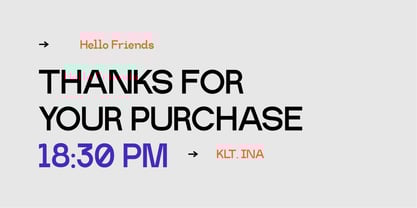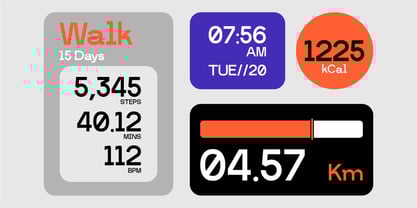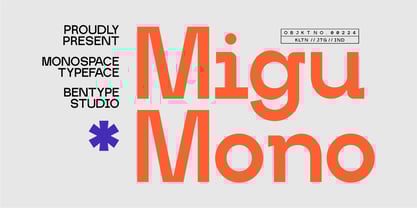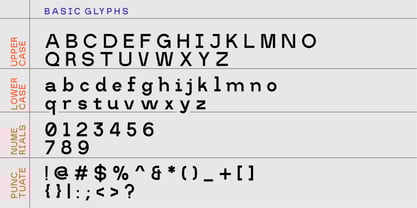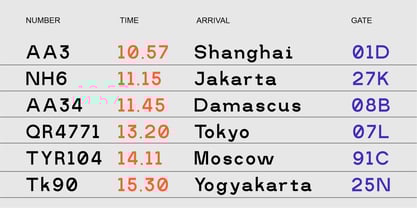
Migumono
by Bentype
The Migumono Font Family was designed by Muhammad Farkhan and published by Bentype. Migumono contains 1 styles.
Migu Mono is a Monospace display font with several unique stems and joins. Despite their limitations in character set and resolution, pixel fonts remain popular among designers for their distinct visual appeal and nostalgic charm, with a condensed style this font is suitable for your design needs for displays, headlines, banners etc. Font Includes: Upper Case & Lower Case Numbers Punctuation Contact us if you need help. I hope you enjoy and thank you.